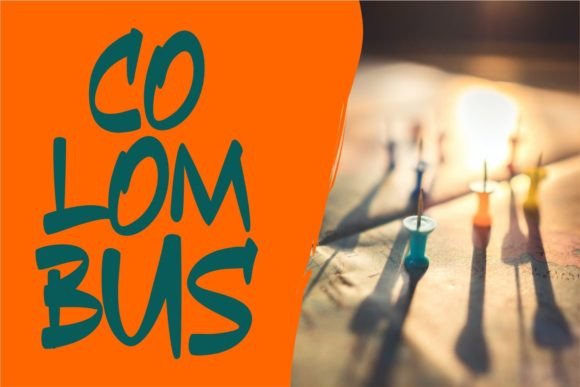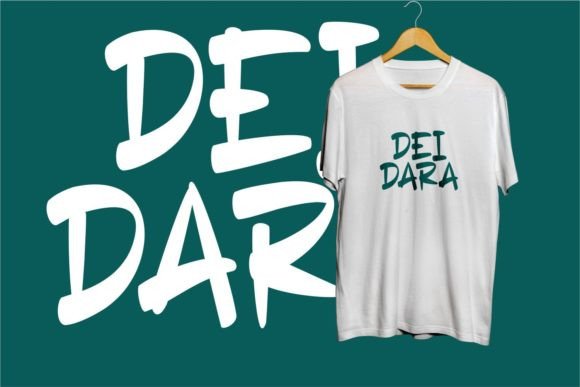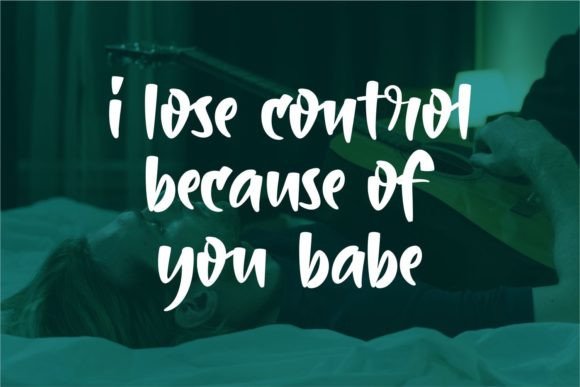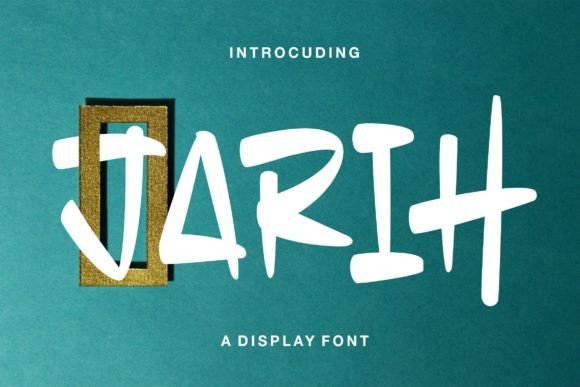
Introduction to Jarih Font
Jarih is a charming and chic script font that combines whimsy with sophistication.
With its sleek lines and unique letterforms, Jarih adds a touch of glamour to any design project From invitations to branding, this font is perfect for those who want to make a statement with their typography.